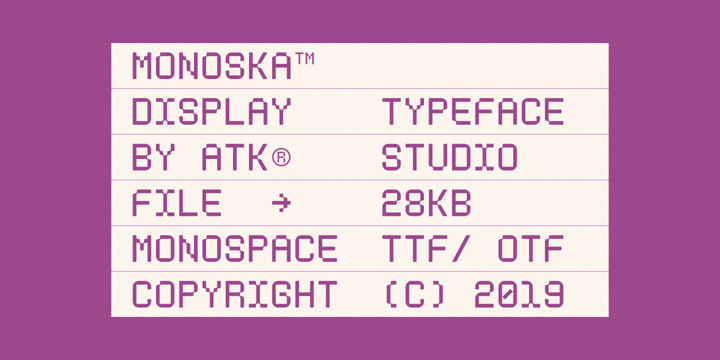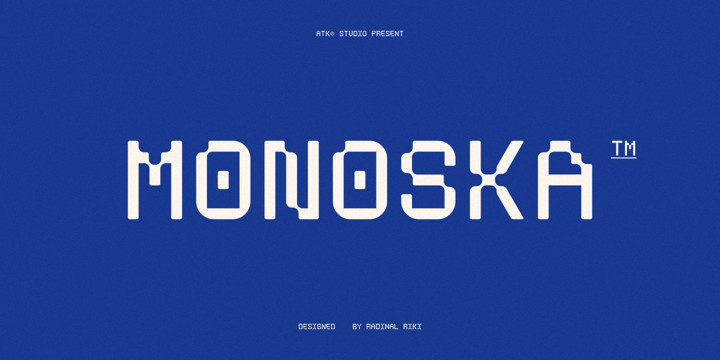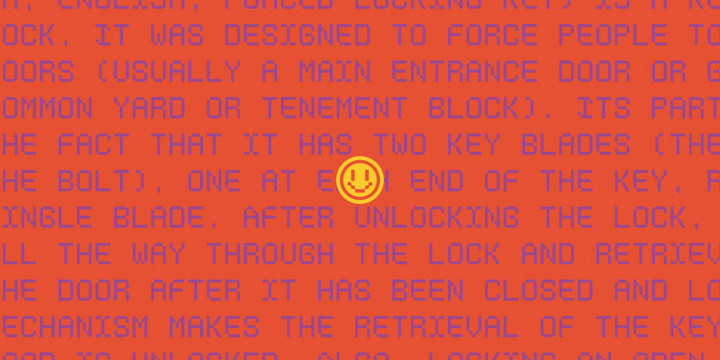
Monoska Font
Monoska FontMonoska is a display monospaced font designed with classic industrial taste and rounded font style by Radinal Riki. Inspired by retro vhs font. created for electronic displays found in our modern techie world such as postal packing slips, airline tickets, informational video displays, ads, logos and more. Come in only one weight, this entire font is capitalized and with a character set that covers over 100 languages.